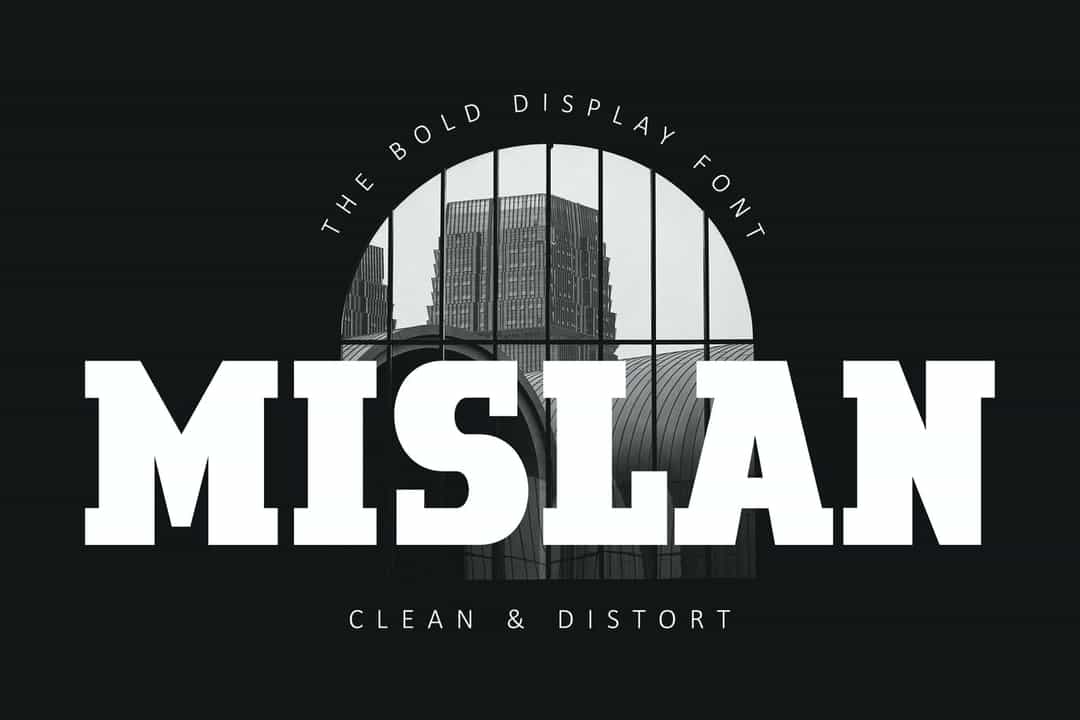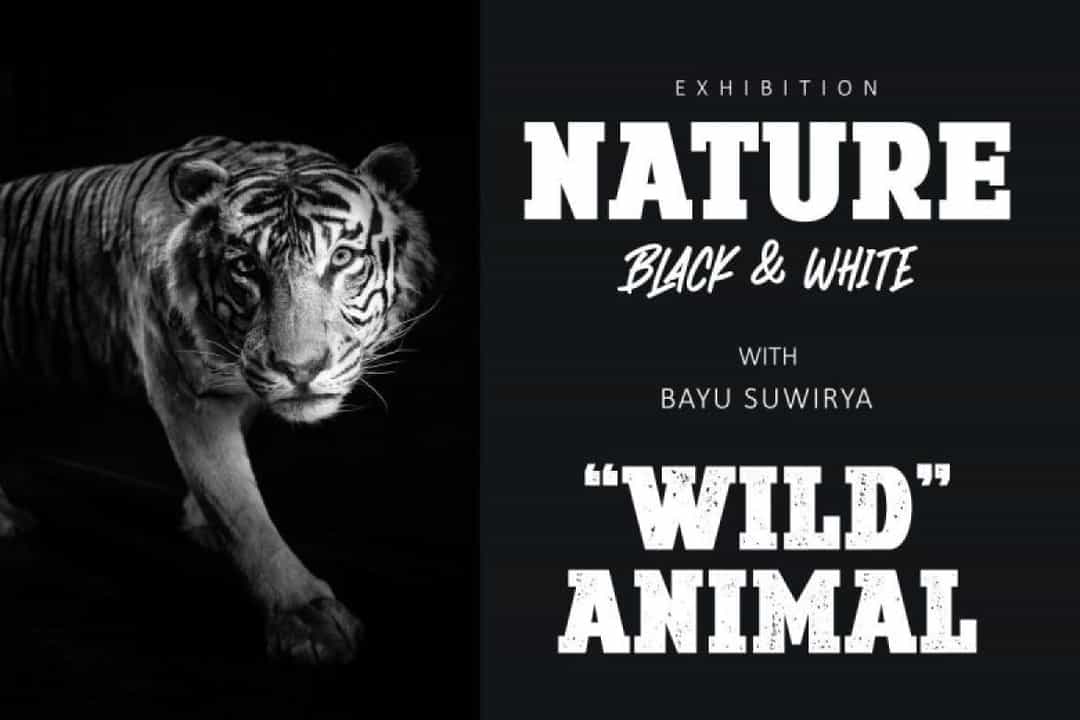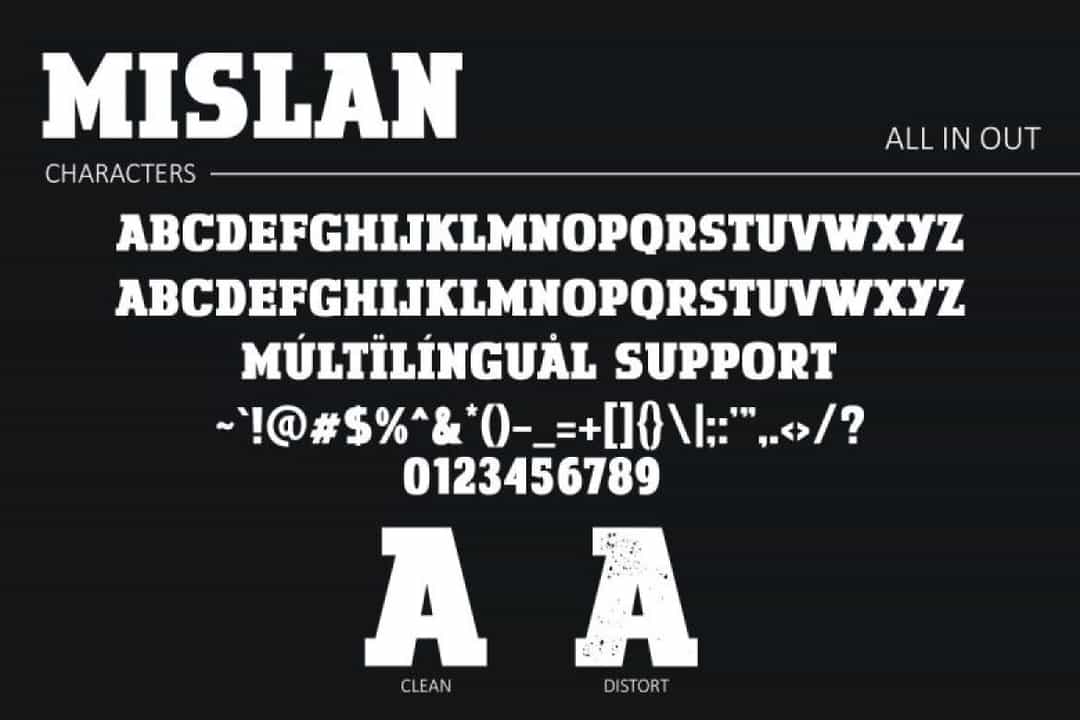
Discover Mislan Font, part of the Slab Serif collection—a versatile and unique font perfect for adding a personal touch to your projects. Download it for free and enjoy crafting designs with style, from invitations to social media posts. This font is available exclusively for personal use, giving you the freedom to create without limits. Unlock your creativity with Mislan Font today!
Mislan is an outstanding slab serif font featuring two distinct designs – grungy characters as well as clean ones – for any project ranging from fashion magazines, logos branding, quotes blog headers, posters ads postcards books websites and more!